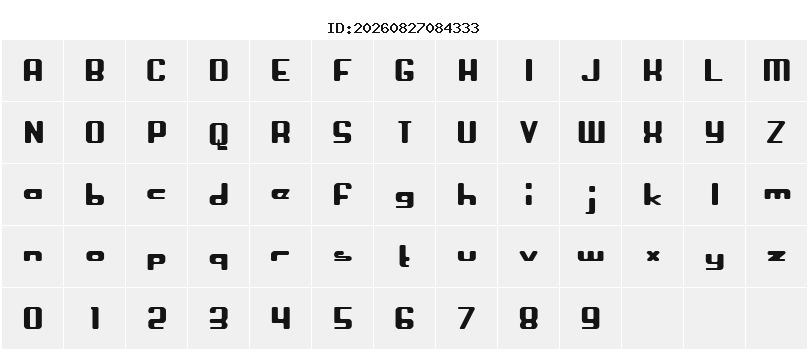
• Font Name: 3代呼吸英文-黑圆角润润
• Full Font Name: 3代呼吸英文-黑圆角润润
About 3代呼吸英文-黑圆角润润.ttf
3代呼吸英文-黑圆角润润.ttf is a modern, elegant sans-serif font designed for ultimate readability and visual harmony. Perfect for branding, headlines, web design, and print materials.